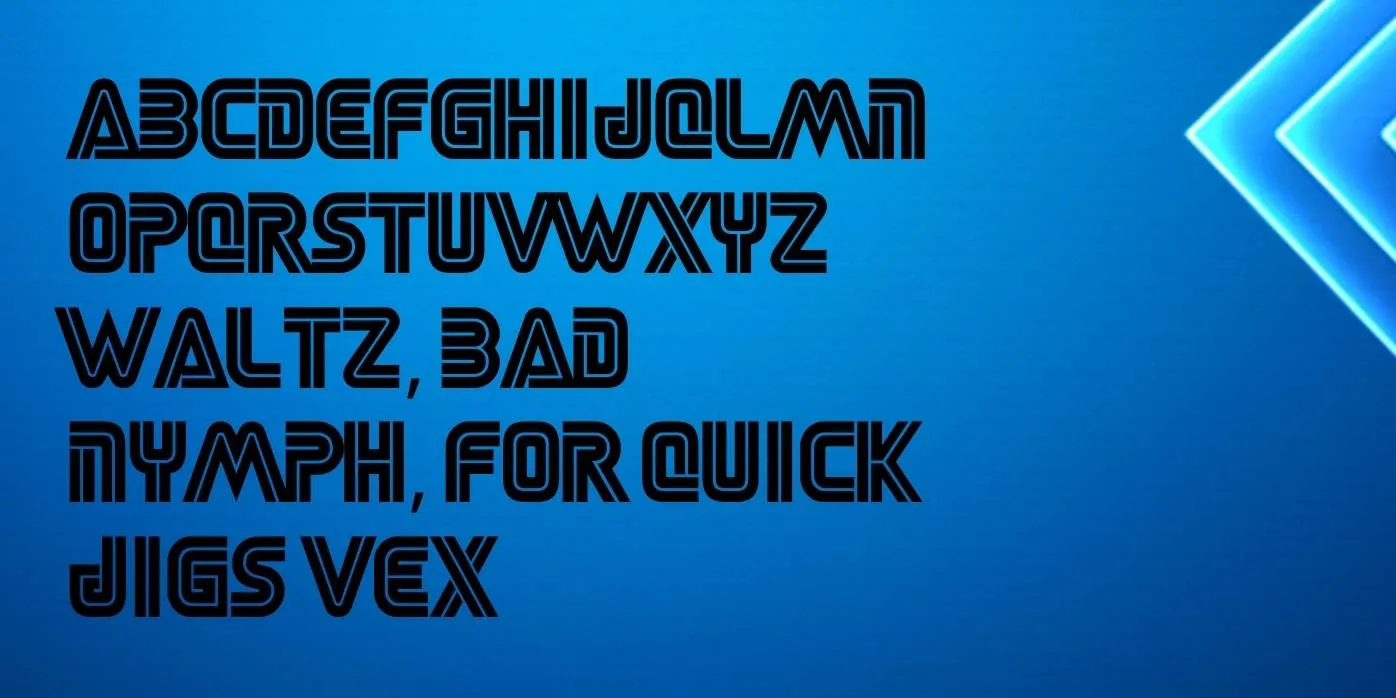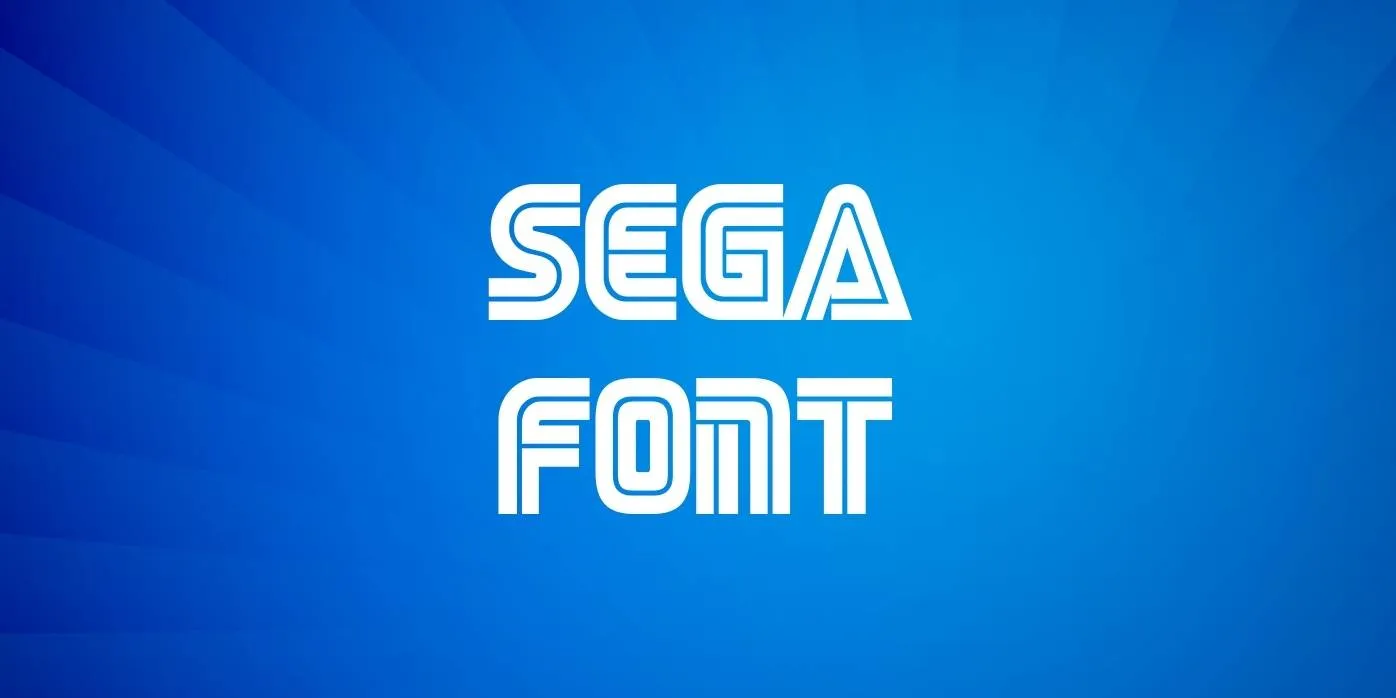
Sega Font
Introducing the beautiful high visible and famous typeface that is Sega Font. The font family belongs to a Techno Font family and it is the best and historical creation of the Sega logotype. Sega is a famous game developing company that developed too many famous arcades and retro games in his age. This is a famous game industry by his name and some of the notable games are considered such as Sonic the hedgehogs and its series, Gunstar Heroes, Altered Beast, etc.
The font family has Truetype features and is free for personal use only. If we talk about its glyphs the font has double stroke characters includes Uppercase and Lowercase Letters, Numbers and Numerals, and symbols as well.